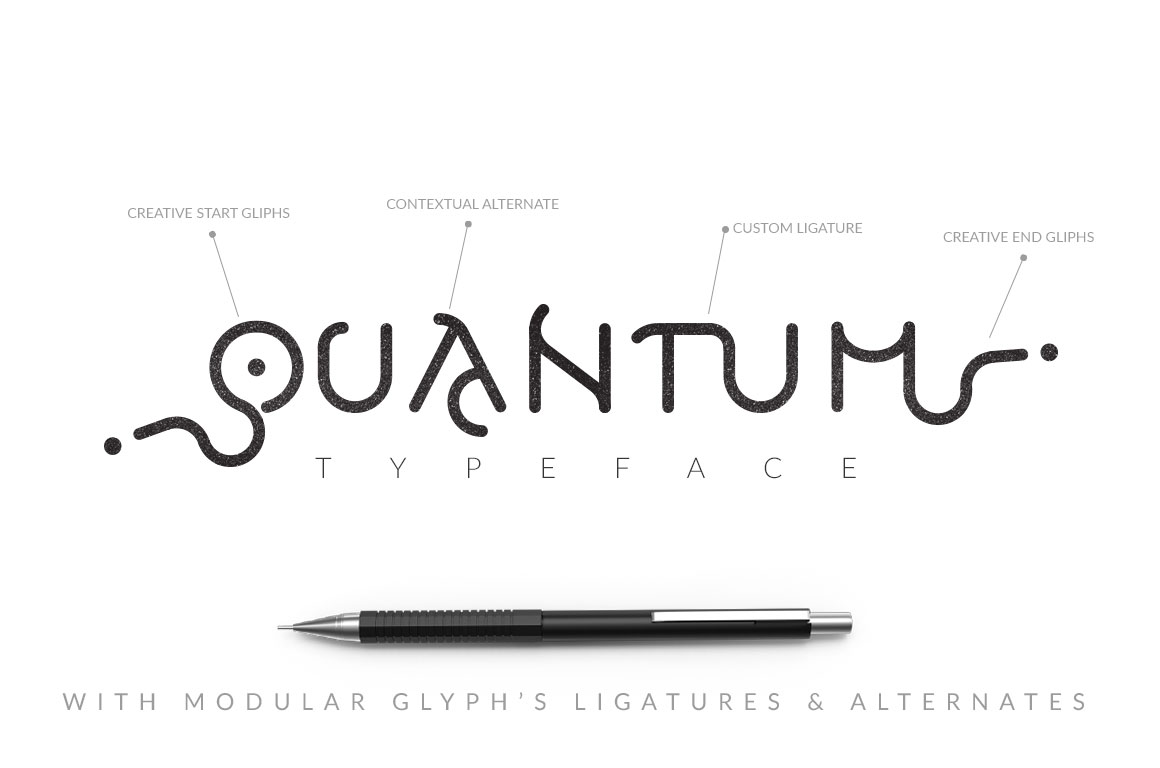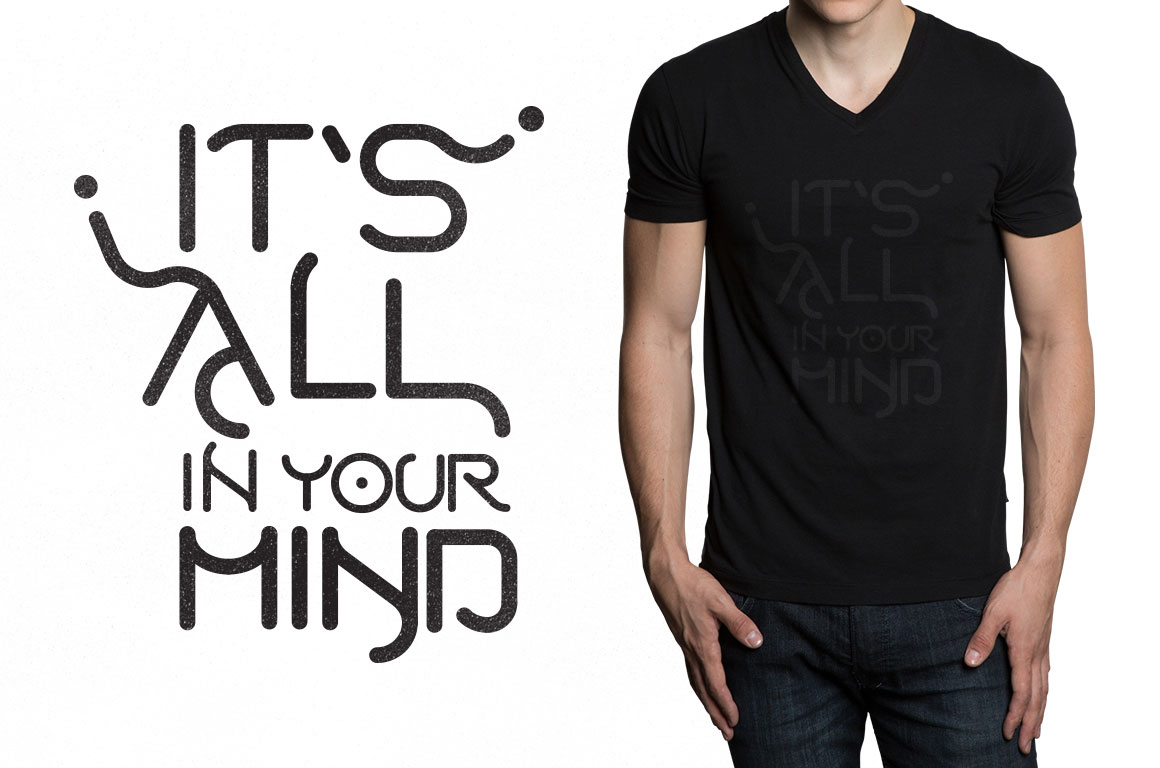
Introduction to Quantum Typeface Font
Have you ever been working on a creative project, staring at your blank screen, and suddenly, the perfect font pops into your mind? It’s like a spark of inspiration, guiding your design towards a new level of sophistication. For designers, the right font can make all the difference in bringing their vision to life. That’s why we’re excited to introduce you to the Quantum Typeface Font, a game-changing design resource that’s about to elevate your creative endeavors.
With its sleek and modern aesthetic, the Quantum font is designed to provide a high-quality foundation for any project. Whether you’re working on a logo, brochure, or website, this versatile font is sure to deliver. One of the standout features of the Quantum font is its modular design, allowing for seamless integration with a transparent background, creating a clean and professional look that’s sure to impress.
Key Features of Quantum Typeface Font
- Includes 12 unique styles, each with its own distinct personality and flair
- Designed with high-resolution images in mind, suitable for print and digital applications
- Perfect for use in logos, branding, and other creative projects where a unique touch is needed
Honest Review: Quantum Typeface Font
I recently had the opportunity to dive into the Quantum Typeface Font, and I must say, it’s been an interesting experience. As a designer, I’m always on the lookout for high-quality design resources that can elevate my creative projects. In this case, the Quantum Typeface Font delivered.
Here are some aspects that really stood out to me:
- ✨ High-quality typography: The Quantum Typeface Font boasts crisp, clean lines and a sophisticated feel that’s perfect for any design project.
- ✨ Versatility: The font is available in a range of weights and styles, making it suitable for various creative projects, from logos to brochures.
- ⚠️ Limited customization options: While the font itself is excellent, I found the customization options to be somewhat limited, which may not be ideal for more complex design projects.
- ⚠️ Transparent background: In some cases, the transparent background can be a bit tricky to work with, especially when layering elements.
Overall, I’m impressed with the Quantum Typeface Font. It’s a great addition to any designer’s toolkit, and I’d definitely recommend it to anyone looking for a high-quality font for their creative projects.
Common Use Cases for Quantum Typeface Font
The Quantum Typeface Font is suitable for a wide range of creative projects, including logos, brochures, business cards, and websites. Its clean and modern design makes it an excellent choice for any project that requires a professional and sleek look.